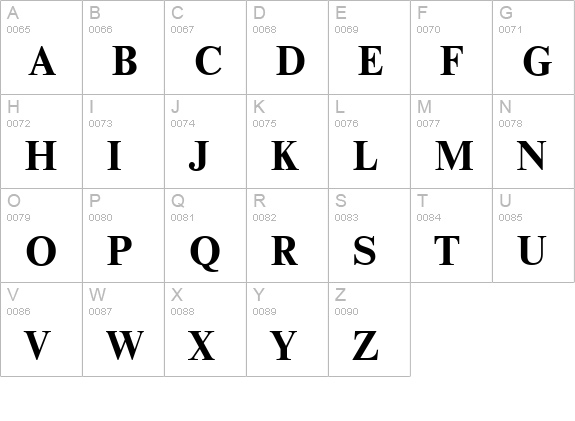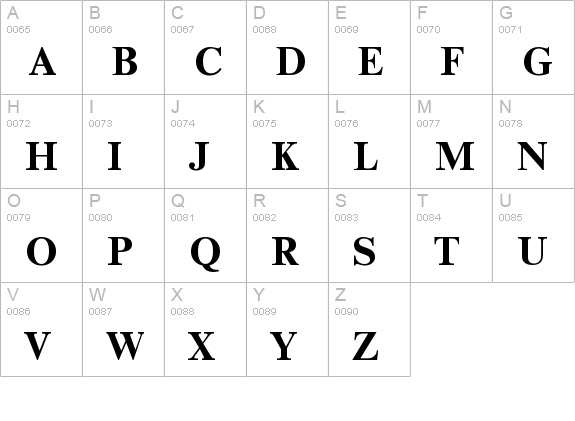
ThamesSerial-Bold Font Details
ThamesSerial-Bold is a strong, high-contrast variant in the ThamesSerial typeface family \xE2\x80\x94 well suited to headlines, attention-grabbing titles, and strong calls-to-action.
ThamesSerial-Bold is a sleek and modern font that exudes confidence and sophistication. Its bold weight makes it perfect for headlines, titles, and other prominent text in your designs. The sharp lines and geometric shapes give ThamesSerial-Bold a contemporary edge, while still maintaining a sense of timelessness. This versatile font is ideal for a wide range of projects, from branding and advertising to editorial design and web graphics. Its strong presence on the page commands attention and ensures that your message is seen and heard. And the best part? ThamesSerial-Bold is available for free download at FontsMarket.com. So go ahead and enhance your designs with this stylish and impactful font today!